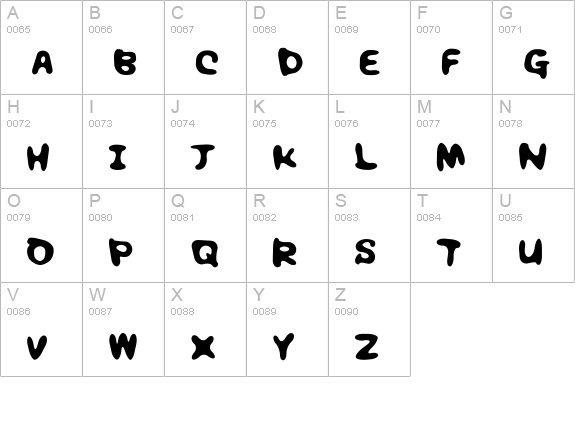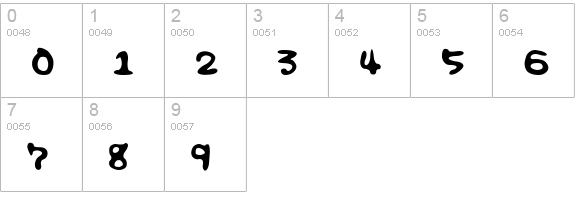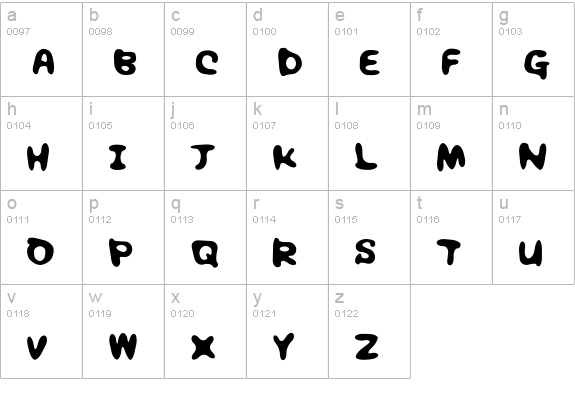
Chocolate syrup Font Details
Introducing the delectable Chocolate Syrup font – a sweet and indulgent typeface that is sure to satisfy your design cravings! With its smooth curves and rich texture, this font exudes a deliciously playful charm, making it perfect for adding a touch of whimsy to your projects. The best part? Chocolate Syrup font is completely free for personal and commercial use, available for download at FontsMarket.com. Whether you're designing a menu for a dessert shop, creating eye-catching social media graphics, or crafting a mouth-watering logo, this font is the perfect ingredient to sweeten up your designs. Indulge your creative side with Chocolate Syrup font and let your imagination run wild with the irresistible appeal of this delightful typeface. Download it today and add a dash of sweetness to your next project!